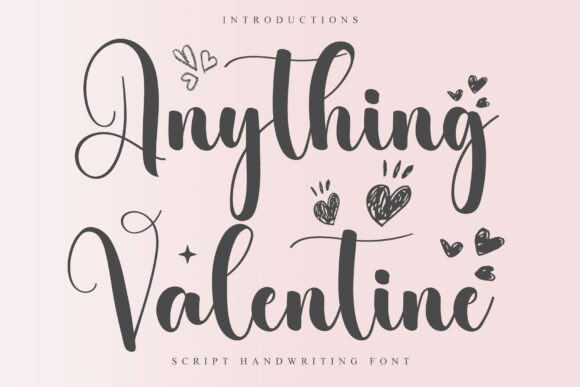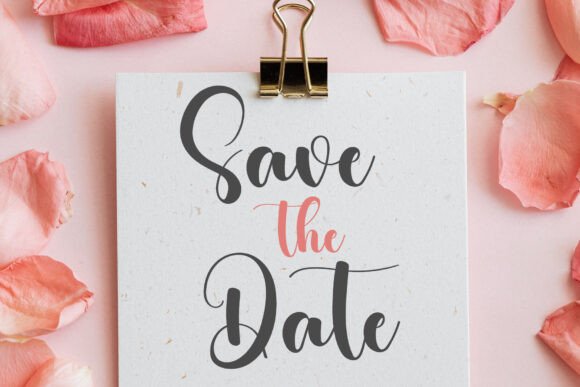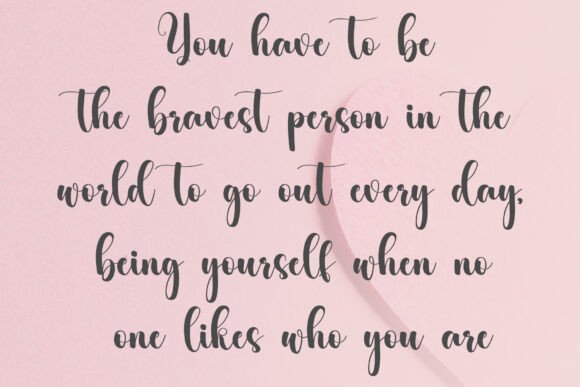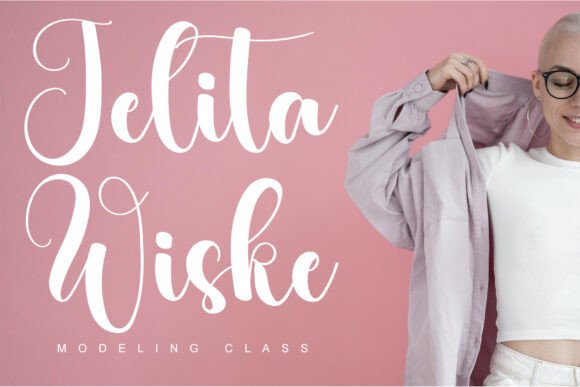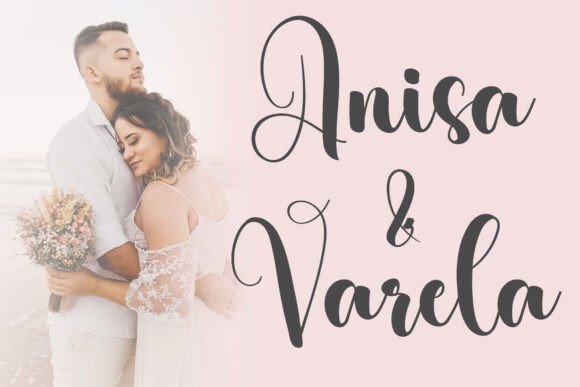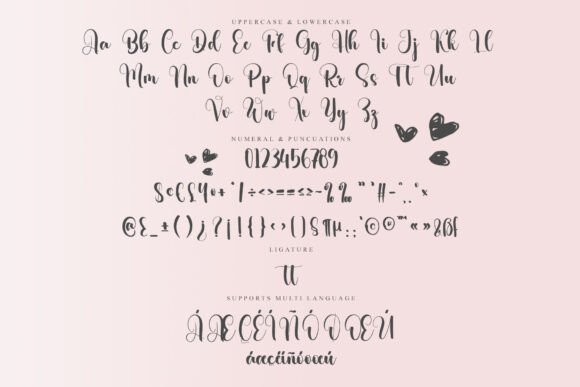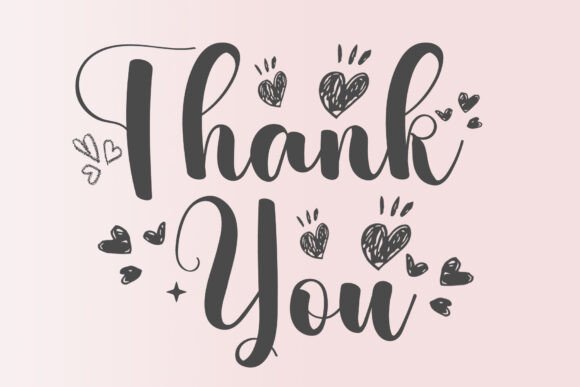
Love is in the Air: The Sweet Allure of Anything Valentine Font
Do you remember the first time you scribbled a heartfelt message on a Valentine’s Day card for your loved one? The way your handwriting danced across the page, filled with love and care? That’s the magic of handwritten fonts like Anything Valentine Font, a charming and playful script that adds a personal touch to any design project.
As a designer, you’re always on the lookout for the perfect font to convey your message. Anything Valentine Font is more than just a font – it’s a way to express your creativity and connect with your audience on a deeper level. Its romantic style is perfect for cards, invitations, and any other project that needs a little extra love. Whether you’re designing for a special occasion or just want to add a touch of whimsy to your designs, Anything Valentine Font is a valuable addition to your toolkit.
Key Features of Anything Valentine Font
- Unique Characteristics: Hand-drawn, cursive script with a romantic and whimsical feel, perfect for Valentine’s Day and other love-themed designs.
Designer Review: Anything Valentine Font
As a designer, I was excited to try out the Anything Valentine Font, but my experience was a mixed bag. Here are my thoughts:
- ✨ The font’s playful, cursive script is perfect for adding a touch of whimsy to Valentine’s Day designs or other romantic projects.
- ✨ The font is highly customizable, with a range of styles and weights to choose from.
- ✨ The font is well-suited for both digital and print designs, making it a versatile choice for designers.
- ⚠️ The font can feel a bit overused or clichéd in certain contexts, particularly when used for generic Valentine’s Day designs.
- ⚠️ The font’s script can be difficult to read at small font sizes, particularly for those with vision impairments.
- ⚠️ The font’s customization options can be overwhelming for beginners, making it difficult to know where to start.
While the Anything Valentine Font has its limitations, I still think it’s a great choice for designers looking to add a touch of romance to their projects. With some careful consideration and use, this font can add a unique and playful touch to any design.
For optimal results, use “Anything Valentine Font” for Valentine’s Day-themed projects, such as greeting cards, invitations, and social media posts. You can also use it for other romantic occasions, like anniversaries and weddings. To get the most out of the font, experiment with different font sizes, colors, and styles to create a unique and eye-catching design.